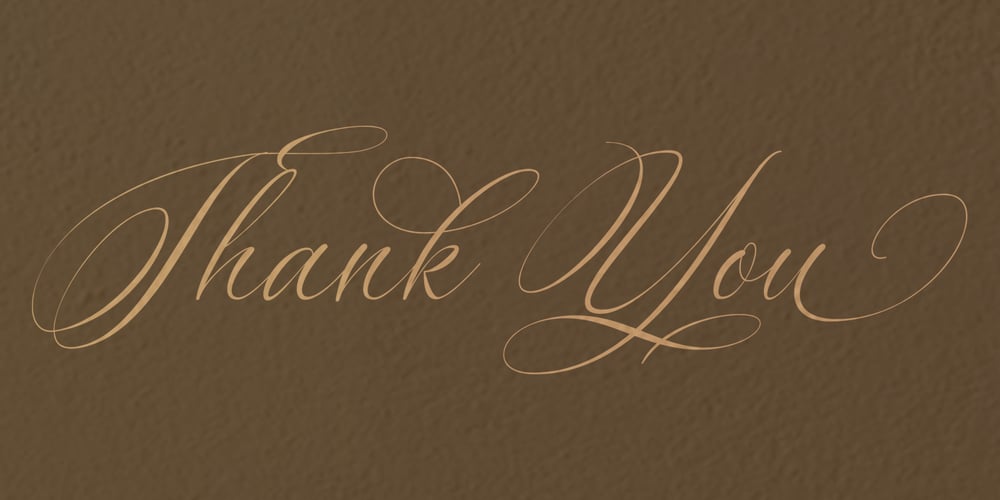
Silenter Font Family was designed by Winarno and published by Bluestudio. Silenter contains 1 styles and family package options. Silenter is suitable for all your design project needs such as: logo design, branding, covers, posters, magazines, wedding invitations, greeting cards, quotes and more. Silenter includes Titling, swash characters, and Stylistic Alternates Multilingual support – spread your message globally AÀÁÂÃÄÅCÇDÐEÈÉÌÍÎÏIÌÍÎÏNÑOØÒÓÔÕÖUÙÜÚÛWYÝŸÆßÞþ Encoded PUA Characters Fonts are fully accessible without additional design software. Happy designing…! Thanks.